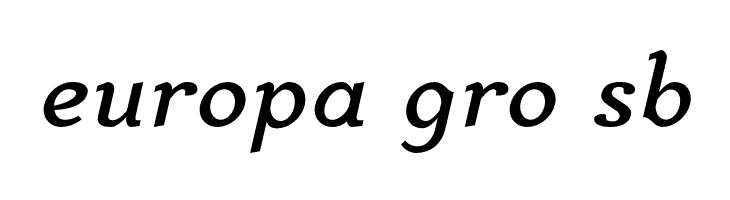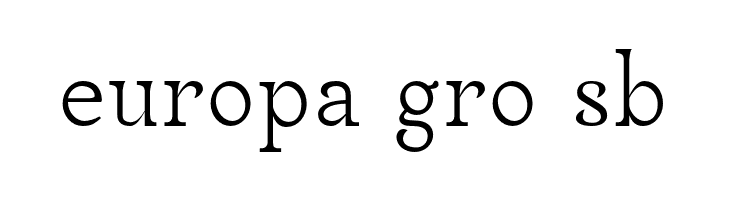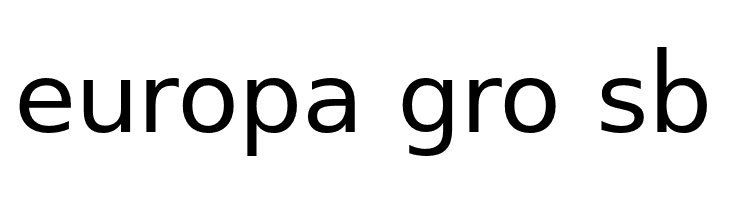
A bold, italicized font with a modern yet classic style.
A modern serif font with clean lines and elegant curves.
A bold, slab serif font with a strong and authoritative presence.
A classic serif font with a modern touch, featuring elegant and balanced proportions.
A classic serif typeface with an elegant italic style and refined serifs.
A bold serif typeface with high contrast and classic elegance.
A classic serif font with medium contrast and elegant proportions.
A bold, italic serif font with a classic and elegant style.
A bold, extended sans-serif font with a modern and clean design.
A modern sans-serif font with clean lines and excellent readability.